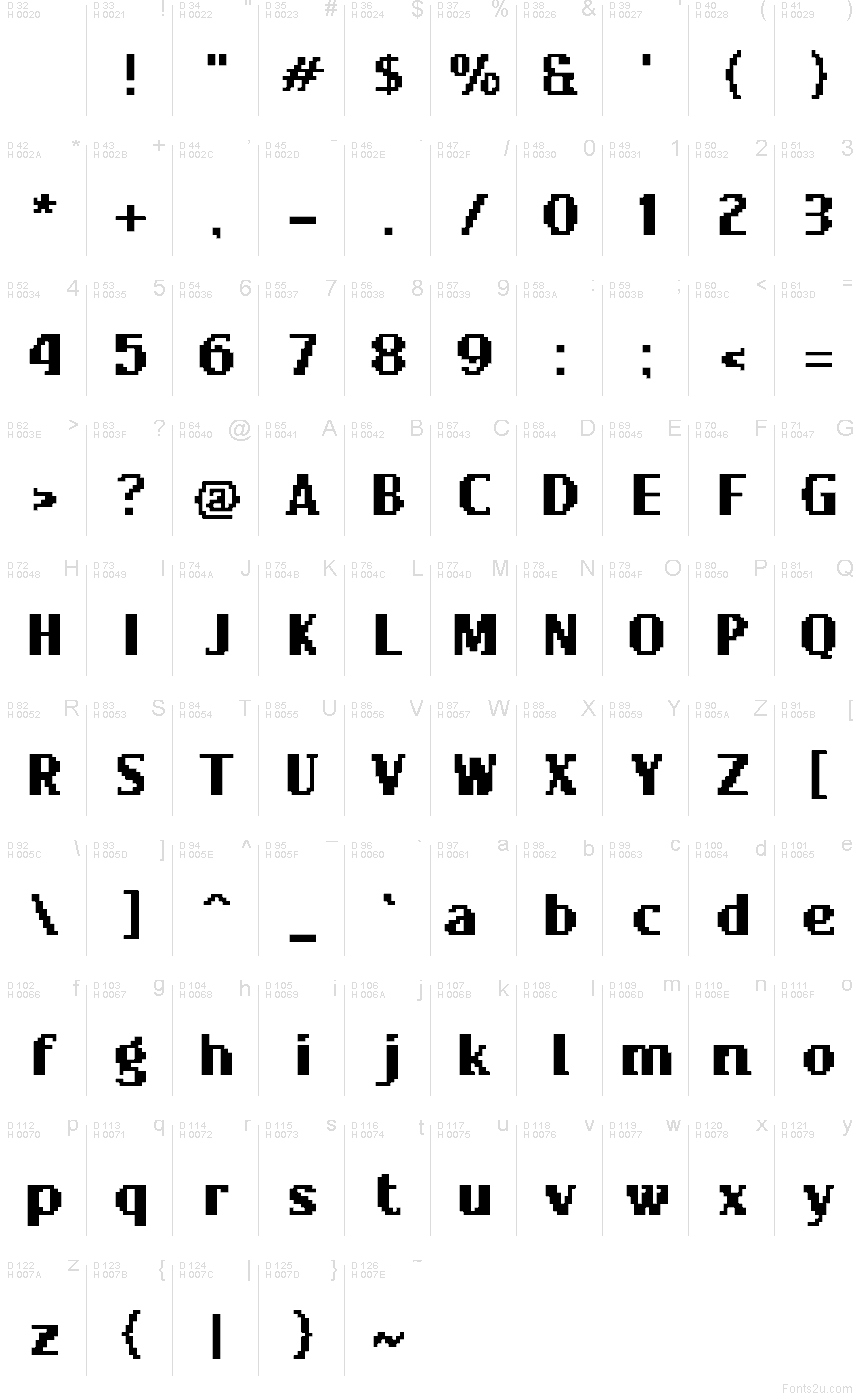
Qager
Qager font by wepfont.com is a free pixel bitmap typeface with a wonderfully odd, modular rhythm. Each letter feels like it’s been built from chunky blocks, then hacked apart to reveal sharp, square holes and unexpected steps, giving text a hacked-into-the-mainframe vibe. The result is bold, crunchy, and slightly chaotic, with a consistent grid holding everything just enough in place to stay readable at larger sizes.
Using Qager, you can push titles for indie games, glitchy posters, experimental logos, techno party flyers, streaming overlays, and album artwork into a more offbeat, digital-art territory. This free font shines when set large, letting the blocky shapes and negative-space pockets really show; pair it with a clean monospaced sans for body text to keep the wildness under control.